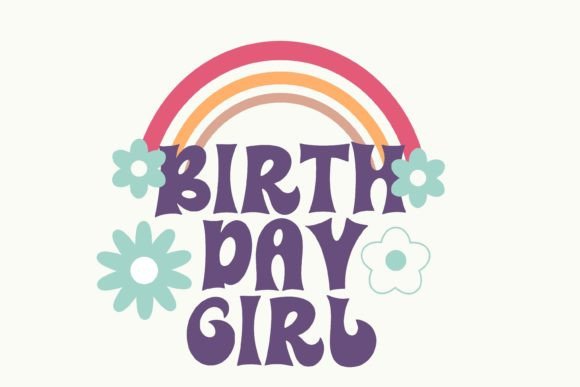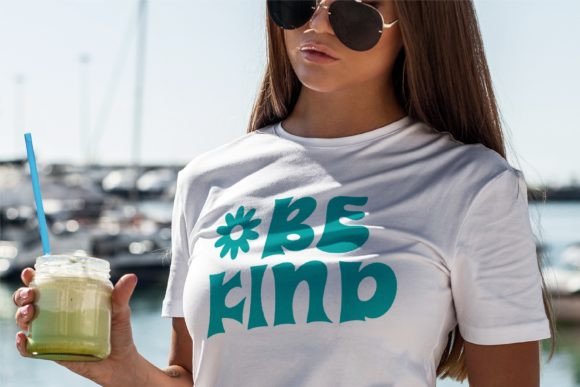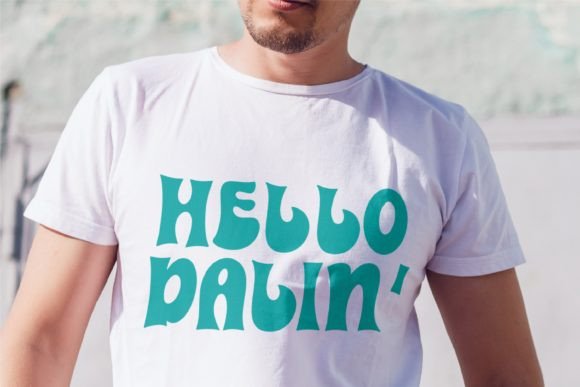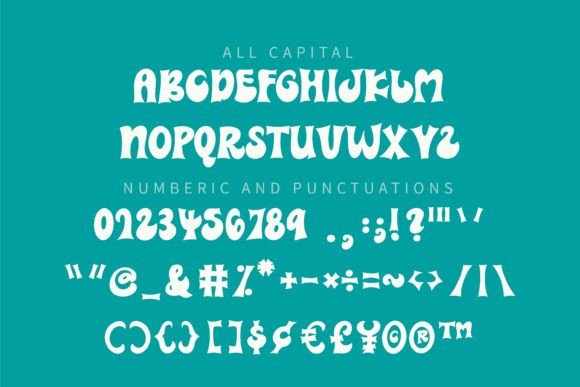
Unleash Your Creativity with Flower Power Font: The Ultimate Groovy Display Font
Are you a designer or crafter looking for a font that embodies the free-spirited and playful vibe of the 1960s? Look no further than the Flower Power Font! This cool retro display font is perfect for any hippie design that requires a groovy look and is guaranteed to make an impact. In this article, we’ll dive into the world of Flower Power Font and explore its features, uses, and benefits.
What is Flower Power Font?
Flower Power Font is a unique and stylish display font that captures the essence of the 1960s flower power movement. Its bold, playful, and eye-catching design makes it perfect for creating eye-catching headlines, titles, and graphics. The font features beautiful, hand-drawn lettering with a distinctive retro flair, complete with subtle imperfections and quirks that give it a charming, handmade feel.
Features of Flower Power Font
So, what makes Flower Power Font so special? Here are just a few of its key features:
- Retro charm: Flower Power Font is inspired by the iconic typography of the 1960s, with a bold, colorful, and playful design that’s sure to evoke memories of a bygone era.
- Hand-drawn lettering: Each letter has been carefully hand-drawn to create a unique, one-of-a-kind look that’s full of character and personality.
Uses for Flower Power Font
So, what can you use Flower Power Font for? The possibilities are endless! Here are a few ideas to get you started:
- Poster design: Create eye-catching posters for concerts, festivals, or events with a groovy vibe.
- Branding and logos: Use Flower Power Font to create a bold, memorable logo for your business or brand.
- Social media graphics: Add a touch of retro flair to your social media graphics, such as Facebook posts, Instagram stories, and Twitter headers.
- Crafting and scrapbooking: Use Flower Power Font to add a personal touch to your crafting and scrapbooking projects, such as card making, journaling, and paper crafting.
Benefits of Using Flower Power Font
So, why choose Flower Power Font for your design projects? Here are just a few benefits:
- Instant recognition: Flower Power Font is a unique and recognizable font that’s sure to grab attention and evoke a sense of nostalgia.
- Easy to customize: The font is easy to customize, allowing you to experiment with different colors, textures, and effects to create a look that’s all your own.
- Time-saving: With Flower Power Font, you can create professional-looking designs in minutes, saving you time and effort.
- Fun and creative: Flower Power Font is a font that’s all about having fun and expressing yourself creatively, making it perfect for designers and crafters who want to push the boundaries of their work.